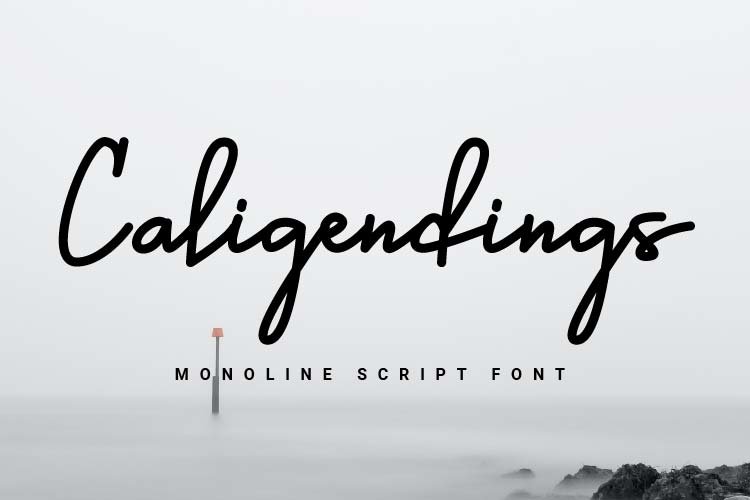
Caligendings - Monoline Script Fonts
Caligendings
A modern and elegant looking font that's perfect for your design projects. Can be applied to logos, social media posts, wedding invitations, business cards, photographer watermarks, and more. For reference, see preview.